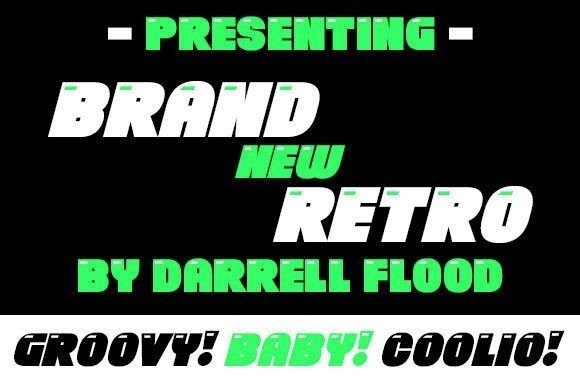
Introducing Brand New Retro Font: The Ultimate Classic Style for Modern Designs
Are you a designer or crafter looking for a font that adds a touch of nostalgia to your projects? Look no further than the Brand New Retro Font! This cool, retro-styled font is perfect for all kinds of themes and settings, from cartoons to old-school projects. In this article, we’ll dive into the world of retro fonts and explore how Brand New Retro Font can elevate your designs.
The Power of Retro Fonts
Retro fonts have been a staple of design for decades. They evoke a sense of nostalgia and playfulness, transporting us back to a bygone era. Whether you’re creating a logo, poster, or packaging design, a retro font can add a unique touch to your project. But what makes a retro font truly great?
A great retro font should have a distinctive, recognizable style that’s reminiscent of the past. It should be versatile enough to work in a variety of contexts, from digital designs to print materials. And, of course, it should be legible and easy to read. The Brand New Retro Font checks all these boxes and more!
What Makes Brand New Retro Font So Special?
So, what sets Brand New Retro Font apart from other retro fonts on the market? Here are just a few reasons why designers and crafters love this font:
- Classic Style: Brand New Retro Font has a timeless, classic style that’s perfect for creating designs that feel like they belong in a different era.
- Versatility: This font works beautifully in a wide range of contexts, from cartoon-style designs to old-school projects.
- Easy to Read: Despite its retro vibe, Brand New Retro Font is incredibly legible, making it perfect for designs that require a clear, easy-to-read message.
- Unique Character: This font has a distinctive character that’s sure to make your designs stand out from the crowd.
How to Use Brand New Retro Font in Your Designs
Now that we’ve covered what makes Brand New Retro Font so special, let’s talk about how to use it in your designs. Here are a few ideas to get you started:
- Cartoon-Style Designs: Use Brand New Retro Font to create fun, playful cartoon-style designs that are perfect for kids’ projects or animations.
- Old-School Video Games: This font is a natural fit for old-school video game designs, adding a touch of nostalgia to your game’s title screen or menu.
- Vintage Posters: Create eye-catching vintage-style posters using Brand New Retro Font, perfect for promoting concerts, events, or products.
- Logo Design: Use this font to create a unique, memorable logo that’s sure to stand out from the crowd.
Tips for Getting the Most Out of Brand New Retro Font
Here are a few tips for getting the most out of Brand New Retro Font:
- Experiment with Colors: Retro fonts look great with bold, bright colors. Experiment with different color schemes to find the perfect look for your design.
- Play with Texture: Add texture to your design by incorporating patterns, gradients, or other effects.
- Mix and Match Fonts: Don’t be afraid to combine Brand New Retro Font with other fonts to create a unique, layered look.